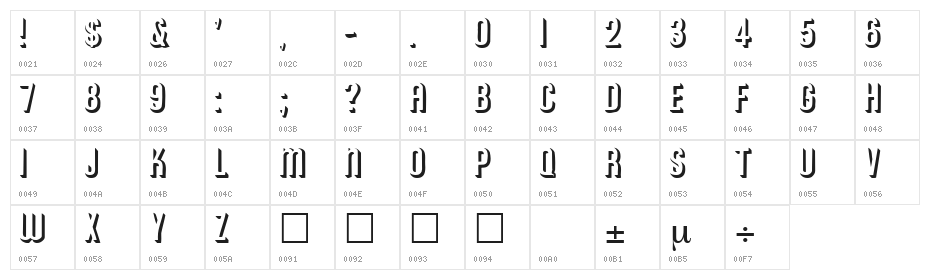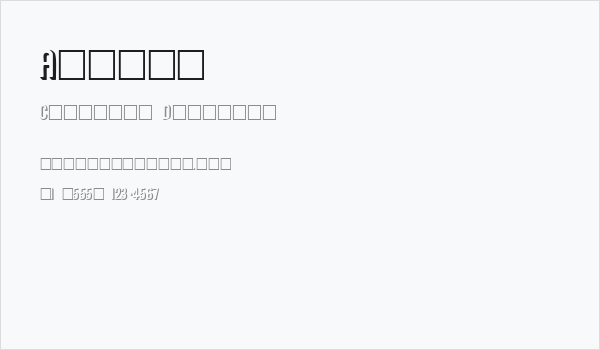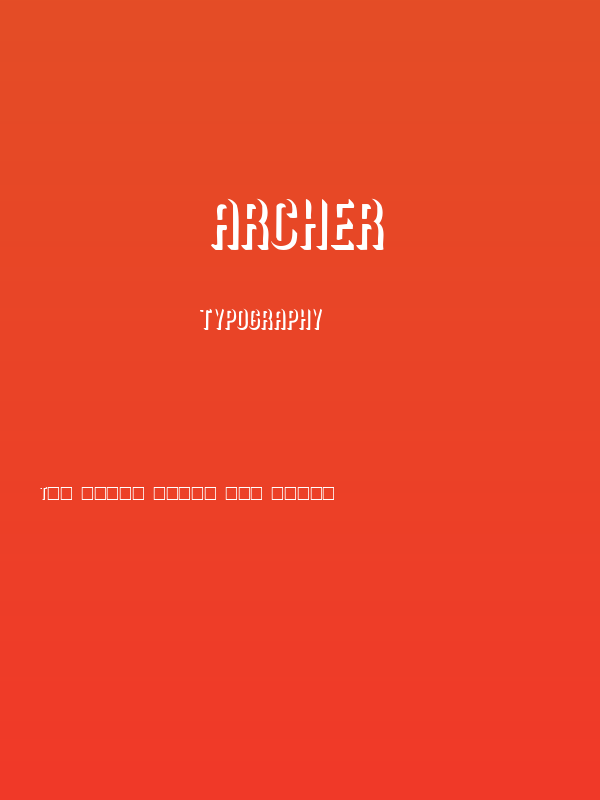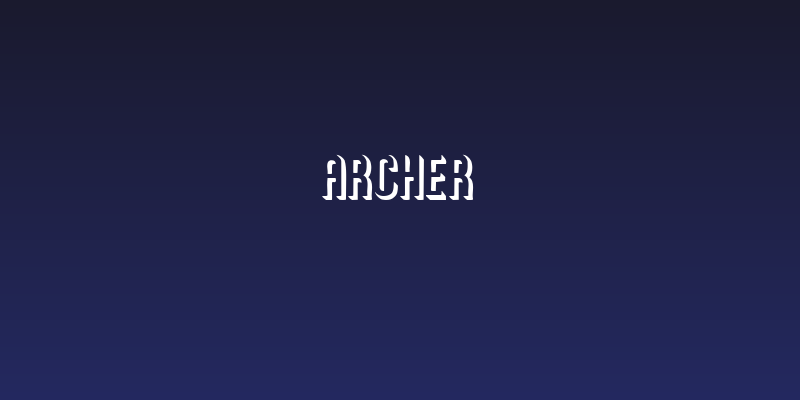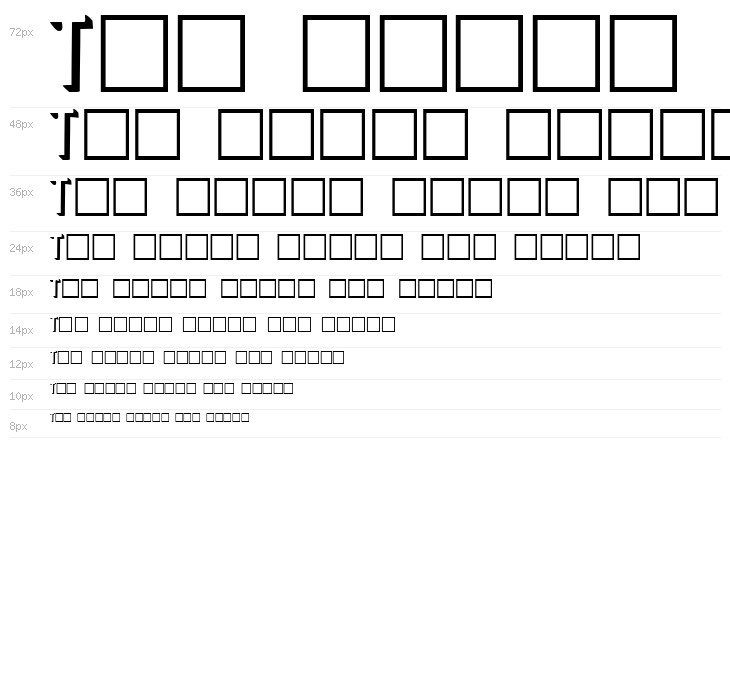
Archer Font
Archer Description
This font features a bold and impactful design with strong geometric shapes and a distinct shadow effect that adds depth and dimension. The uppercase letters are particularly striking, with sharp angles and a robust presence. The numerals and special characters maintain this bold aesthetic, ensuring consistency across all glyphs. The font's style is reminiscent of vintage poster typography, making it ideal for projects that require a strong visual impact. Its unique shadowing gives it a three-dimensional appearance, setting it apart from more traditional typefaces.
| Overall Style | Vintage |
| Proposed Projects | Perfect for poster design, branding projects, headlines, and any creative work that requires a bold statement. |